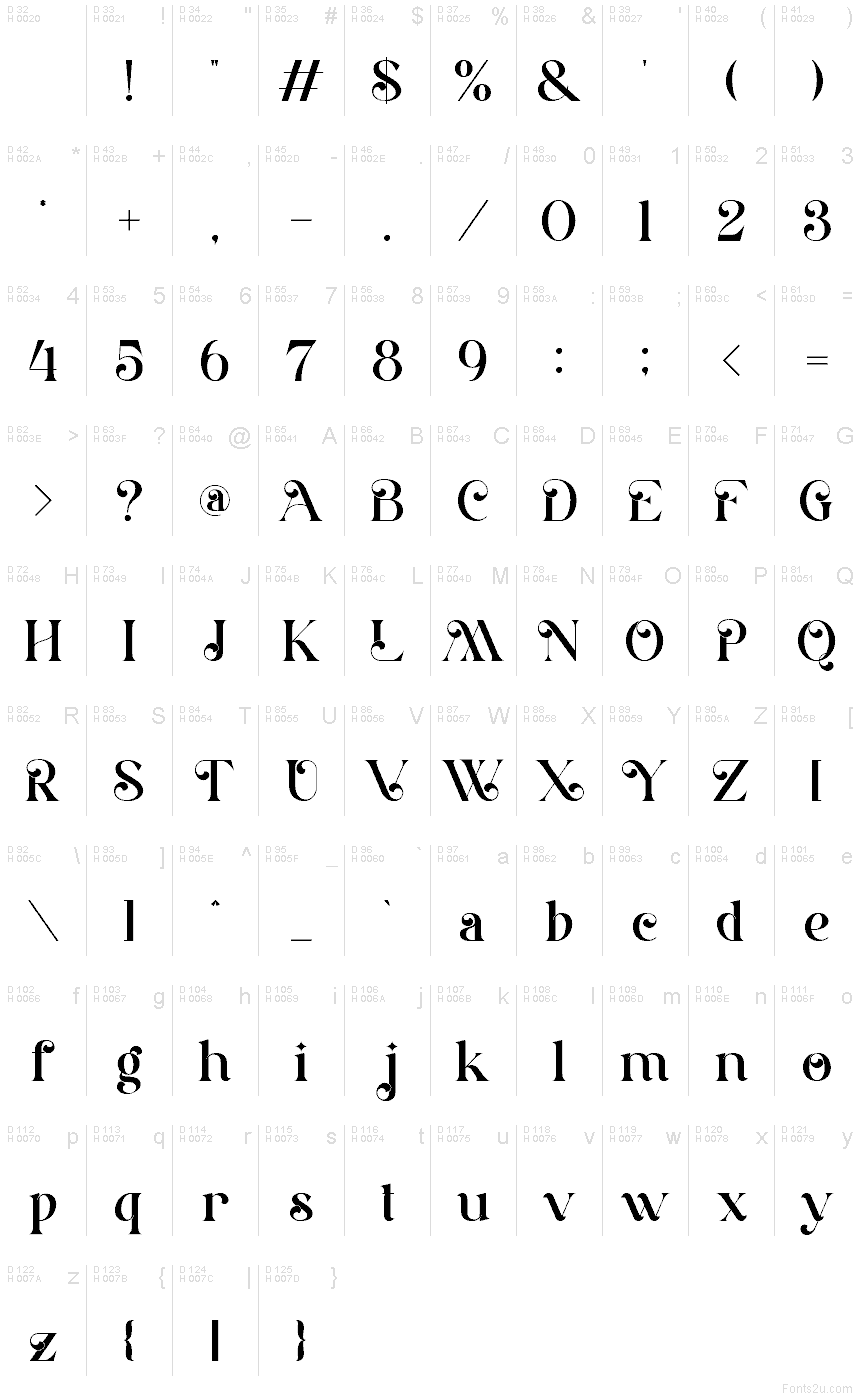
Vascor Regular
Vascor font by Ermedia Studio is a free curly display font that leans into drama without losing control. Its lush curls and bulbous flourishes are carved into bold, high-contrast strokes, creating a tactile, inky presence that feels both vintage and freshly polished. The rhythm is generous and theatrical, so a single word can read like a logo while maintaining crisp legibility at headline sizes.
Using Vascor, you can elevate boutique logos, perfume packaging, event posters, editorial headlines, book covers, cocktail menus, and striking social posts. This free font shines when you let it breathe-go larger, add tracking, and pair it with a clean, modern sans to anchor the swirls. The result is a rich, statement-making typographic system that turns attention into memory.